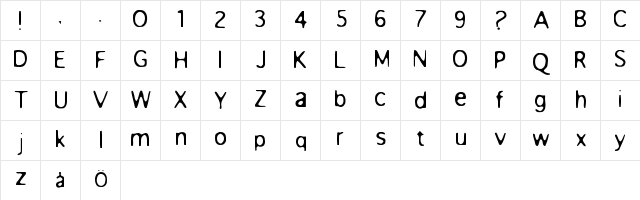
Anorexia Medium Font Preview
Anorexia Medium
Anorexia Medium Font Details
Design Context for Anorexia Typeface
Anorexia offers clean, dependable letterforms without strong stylistic allegiance, making it a practical choice for designers who need flexibility.
Pro Tip: Pair Anorexia with a font of contrasting weight or personality to build a more expressive typographic hierarchy.